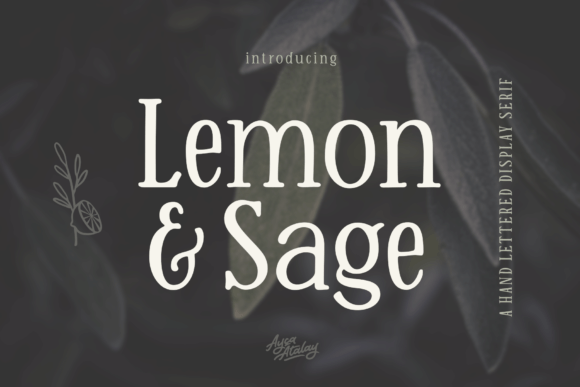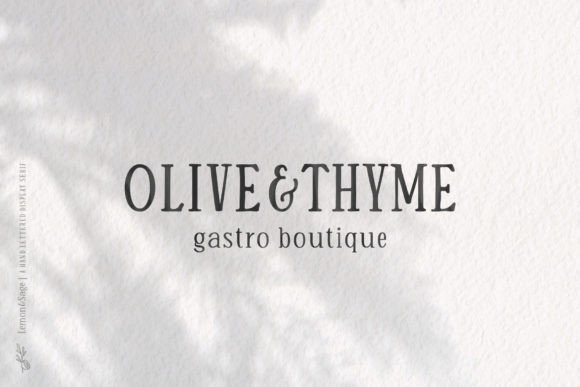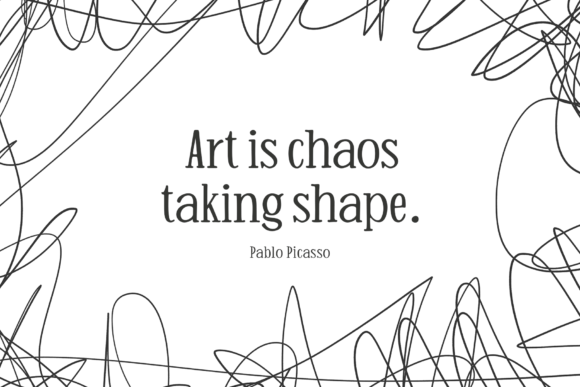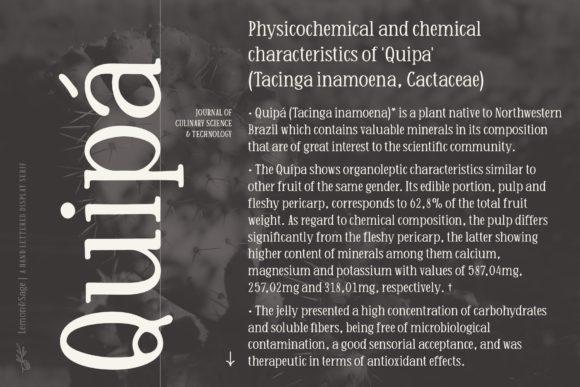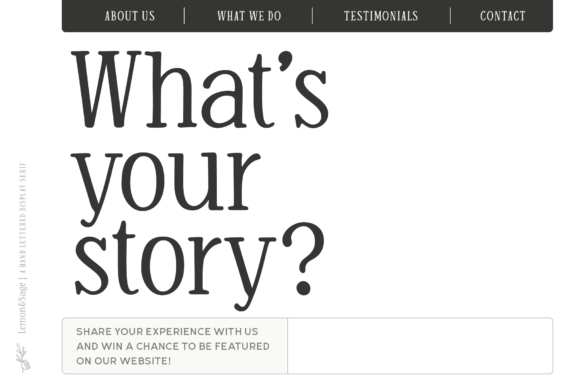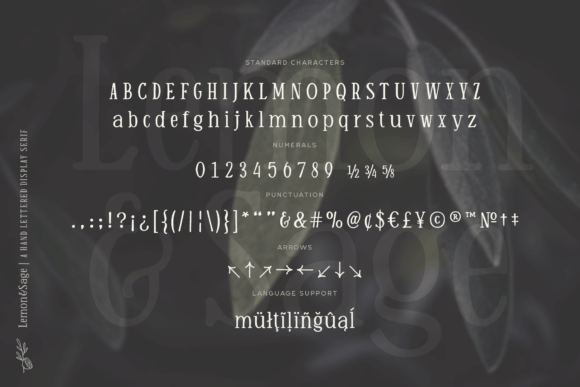
Lemon and Sage Font
Lemon And Sage is a sophisticated, charming serif font with a fashionable touch. Specially designed for luxury, elegant, feminine projects, this font is perfectly suitable for creating modern, chic designs.